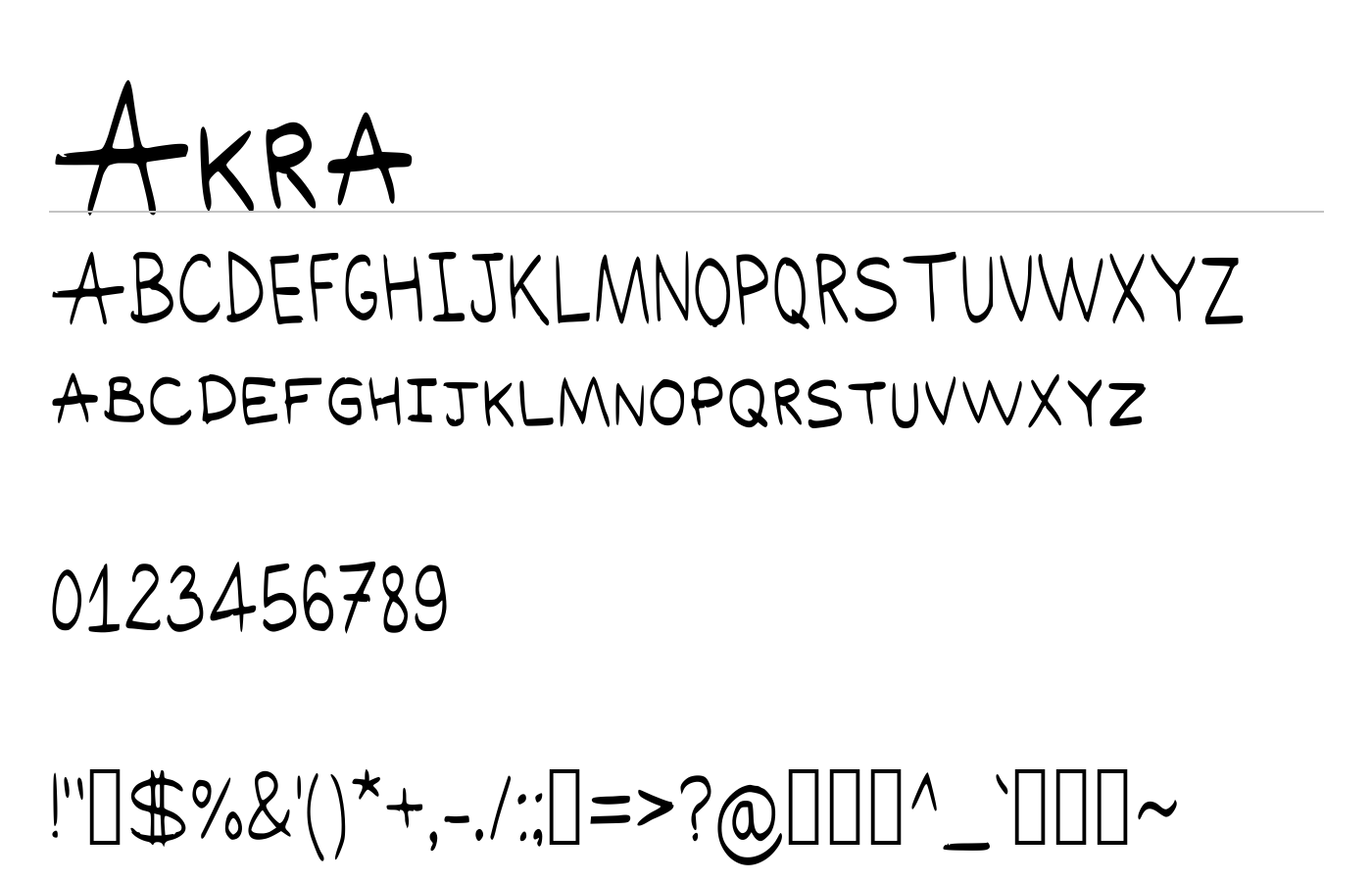
Akra is a playful, hand-drawn sans serif font with a casual and friendly vibe. Its irregular, narrow letterforms and tall x-height give it an approachable, informal feel, making it ideal for creative projects, children’s materials, or quirky branding that seeks a personal touch. This font works best in headlines, logos, or anywhere you want to convey warmth and individuality.
Akra Font